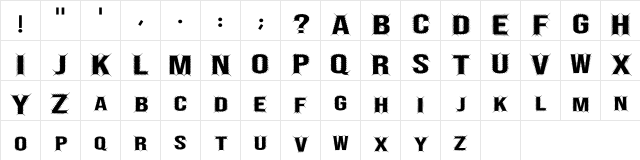
Bebas Centipede Regular
Design Context for Bebas Centipede Typeface
Bebas Centipede takes a measured approach to typography — its balanced proportions and neutral character make it a reliable workhorse for both digital and print work.